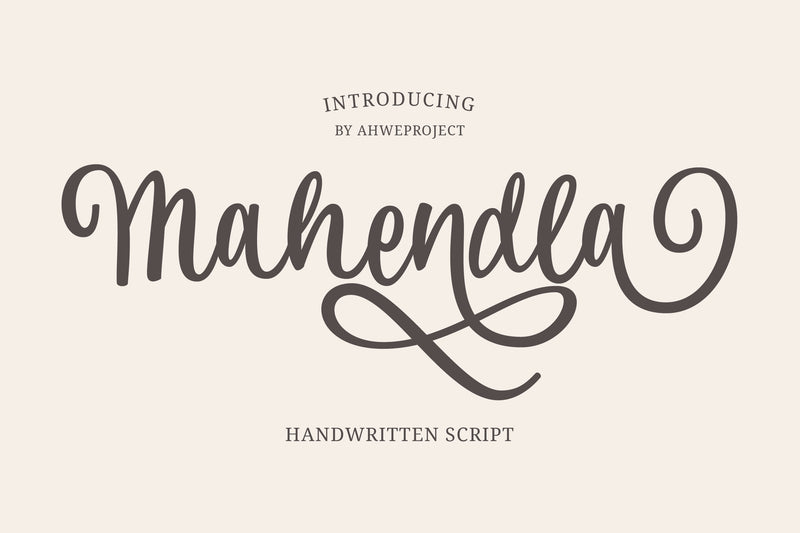
Mahendla - Elegant and Flowing Handwritten
Mahendla is a delicate, elegant, and flowing handwritten font. It has beautiful and well-balanced characters and as a result, it matches a wide pool of designs. Add it to your most creative ideas, and notice how it makes them come alive!
Mahendla is perfect for branding projects, logo, wedding designs, social media posts, advertisements, product packaging, product designs, label, photography, watermark, invitation, stationery and any projects that need handwriting taste.